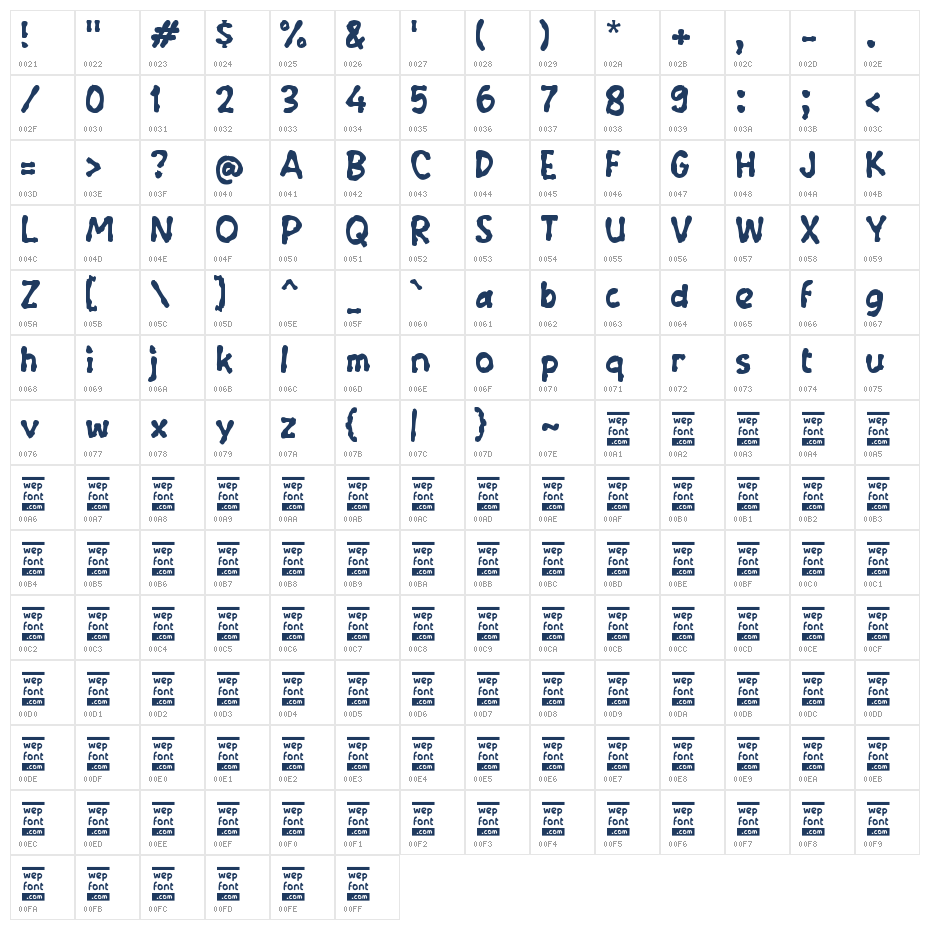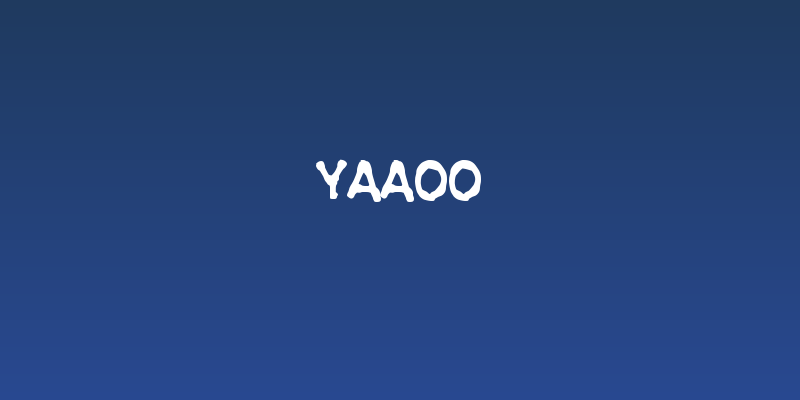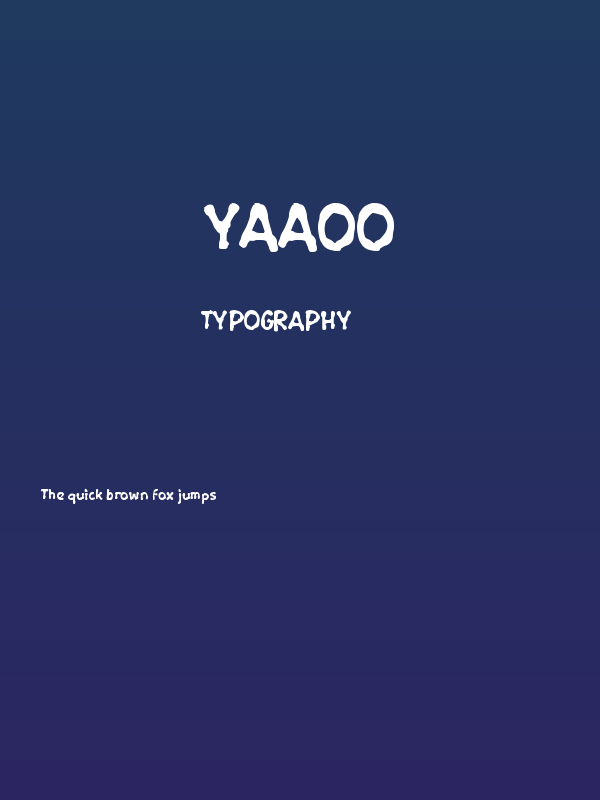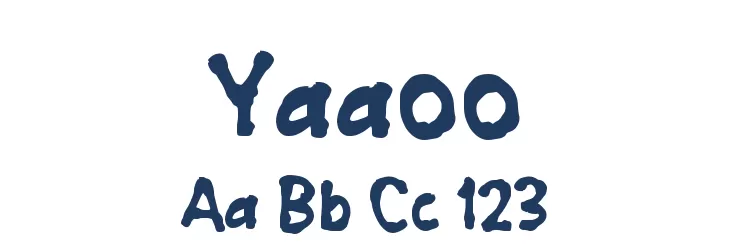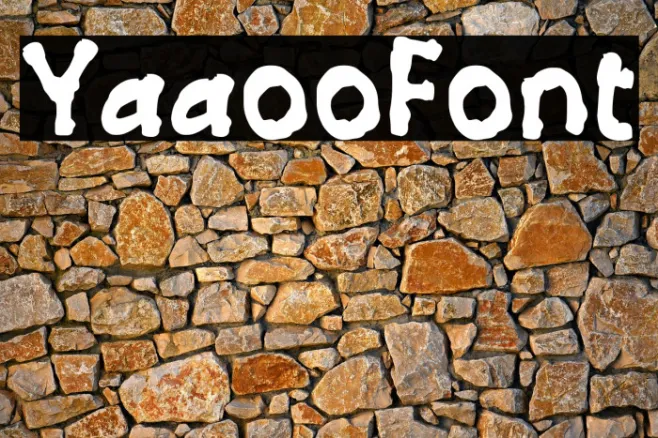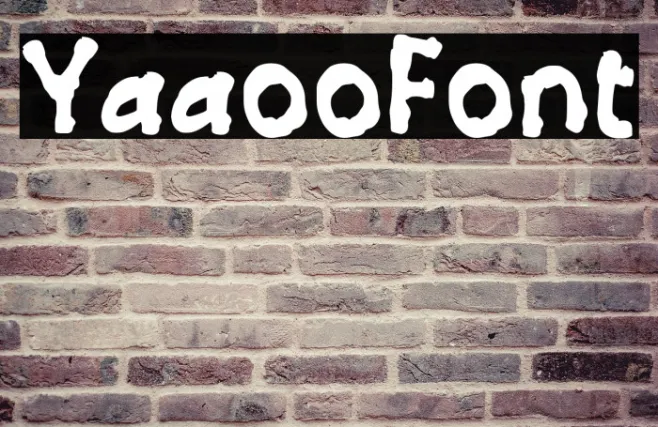
Yaaoo Font
Yaaoo Description
A playful, hand-drawn style font with irregular, textured strokes that resemble brush or marker pen writing.
| Overall Style | Casual, Playful, Hand-drawn |
| Use Case | Headlines, Posters, Invitations, Children's materials |